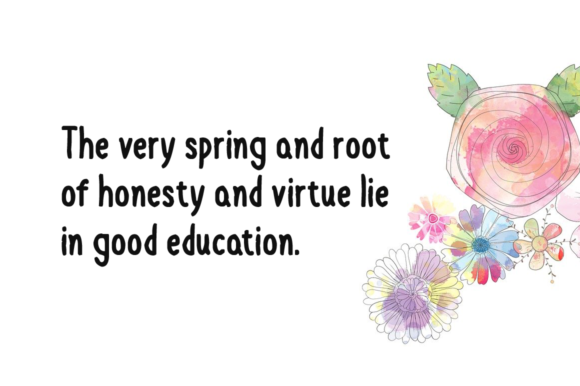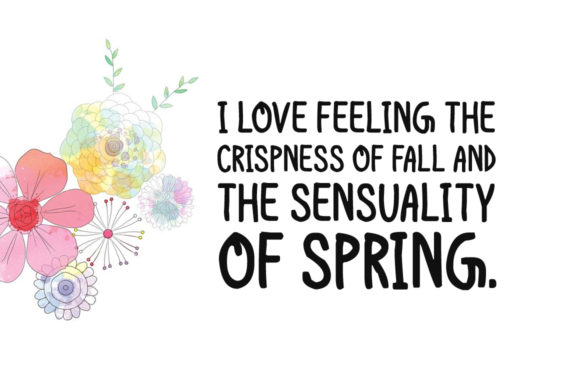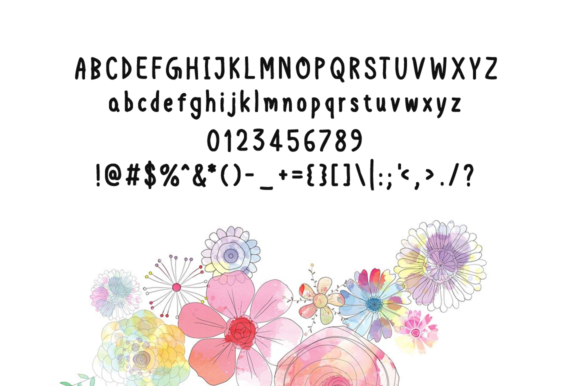
Introduction to Hi Spring Font
Hi Spring is the perfect choice for your next project be it either a new fancy logo or a t-shirt design.
Use your creativity and make something to be proud of with this happy new font .
Key Features of Hi Spring Font
Why Choose Hi Spring Font?
Hi Spring Font offers exceptional quality and versatility, making it a valuable addition to your design toolkit. Whether you’re creating for personal projects or commercial use, Hi Spring Font delivers professional results.